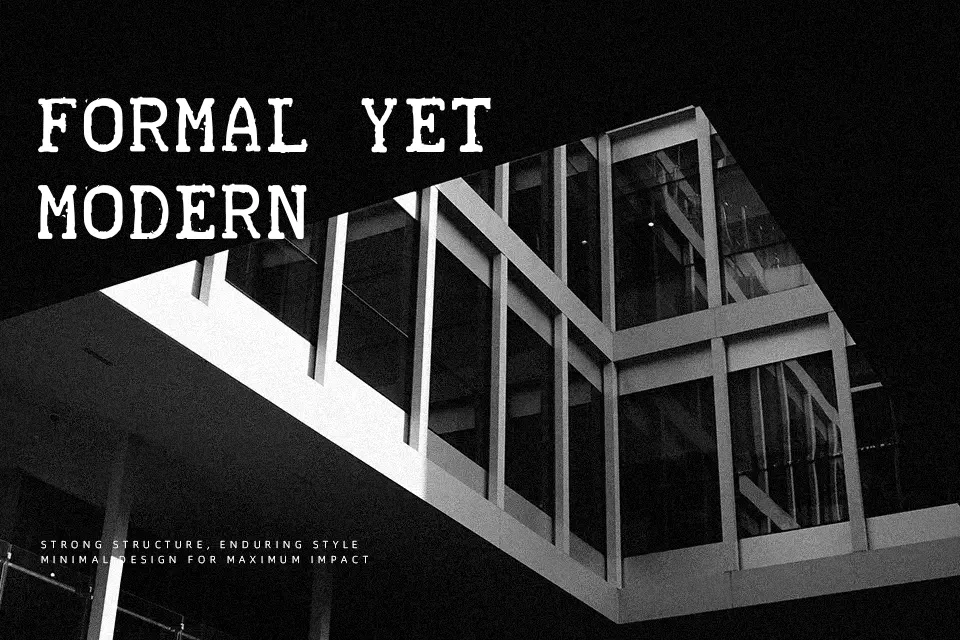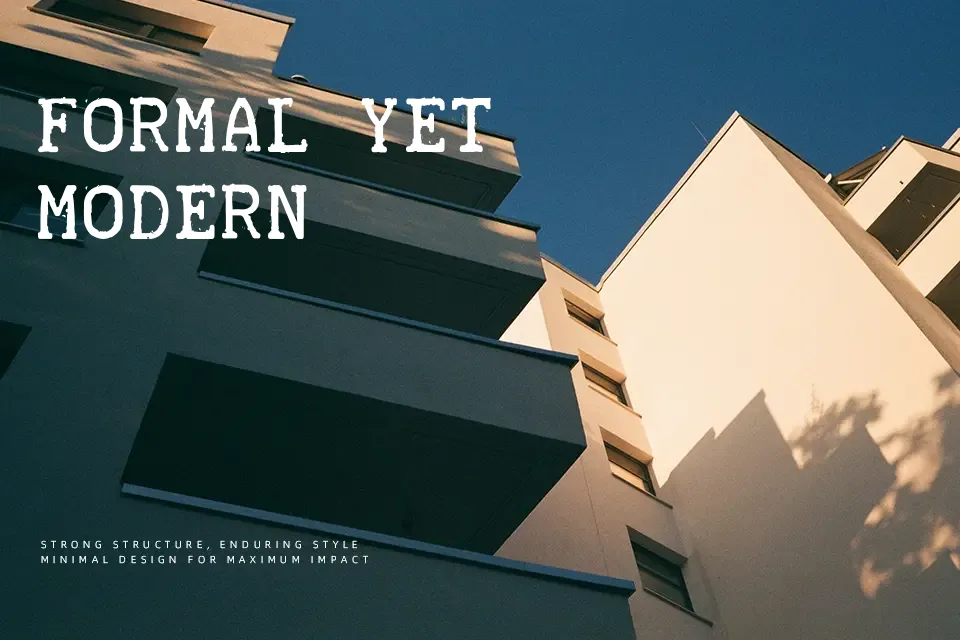
Teletype 1945-1985 Font
Built on rigid mechanical proportions, Teletype 1945-1985 Font establishes an austere visual rhythm through uniform character widths, pronounced bracketless serifs, and low stroke contrast. Distinctive wide uppercase forms and specialized graphic symbols convey genuine vintage telecommunication character across medium and large display sizes. The fixed-pitch structure keeps tabular content aligned across technical diagrams, mock terminal interfaces, and retro documentation headers. However, the uniform spacing creates uneven text density during sustained reading, making the design less suitable for continuous editorial prose or delicate branding applications.
Best For: vintage technical manuals, retro computer terminal mockups, industrial machine nameplates, data readouts
Not Ideal For: continuous editorial text, luxury cosmetic branding, wedding stationery, mobile body paragraphs
Perfect for headline, packaging, and poster, with a classic and display style.